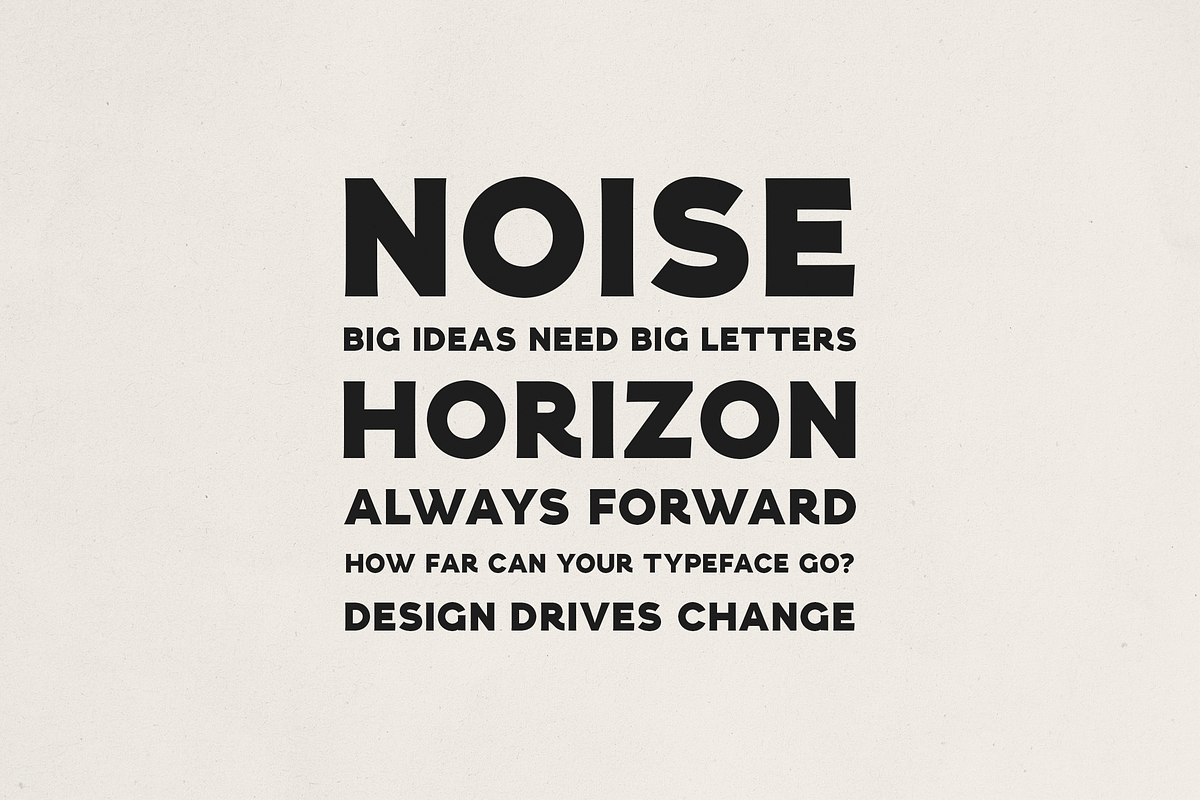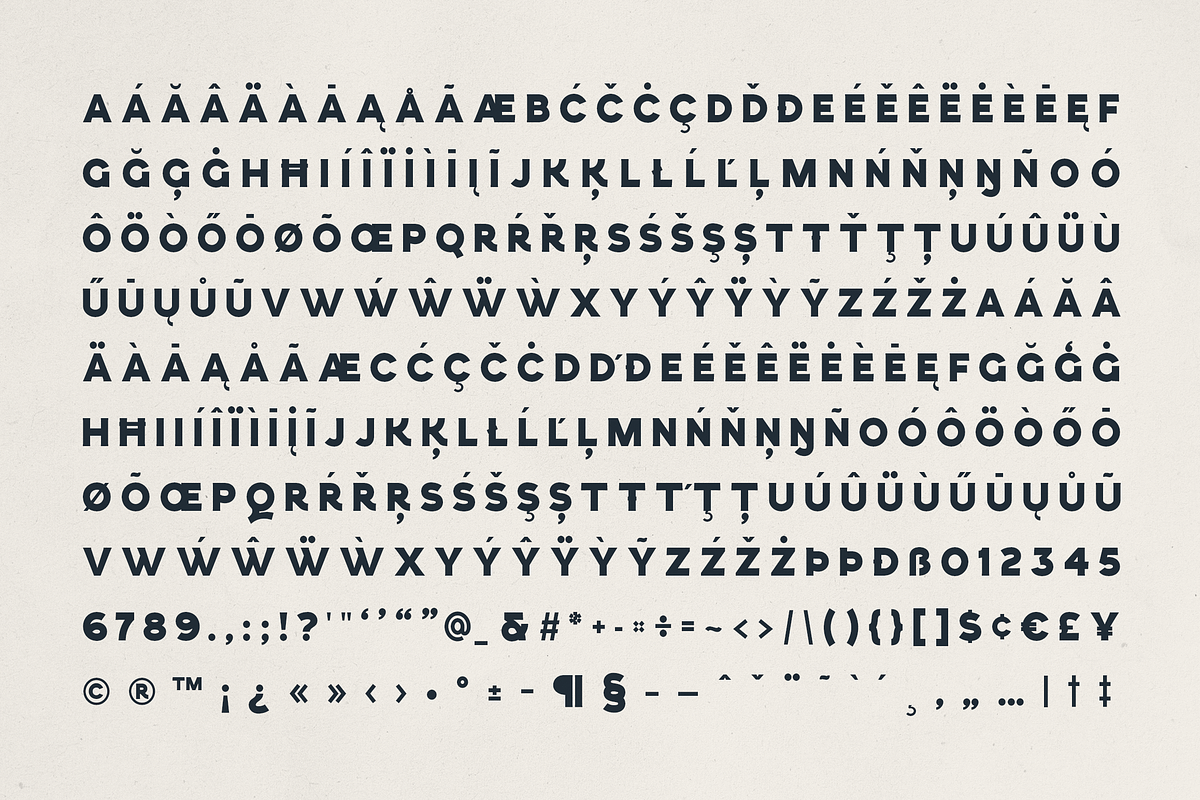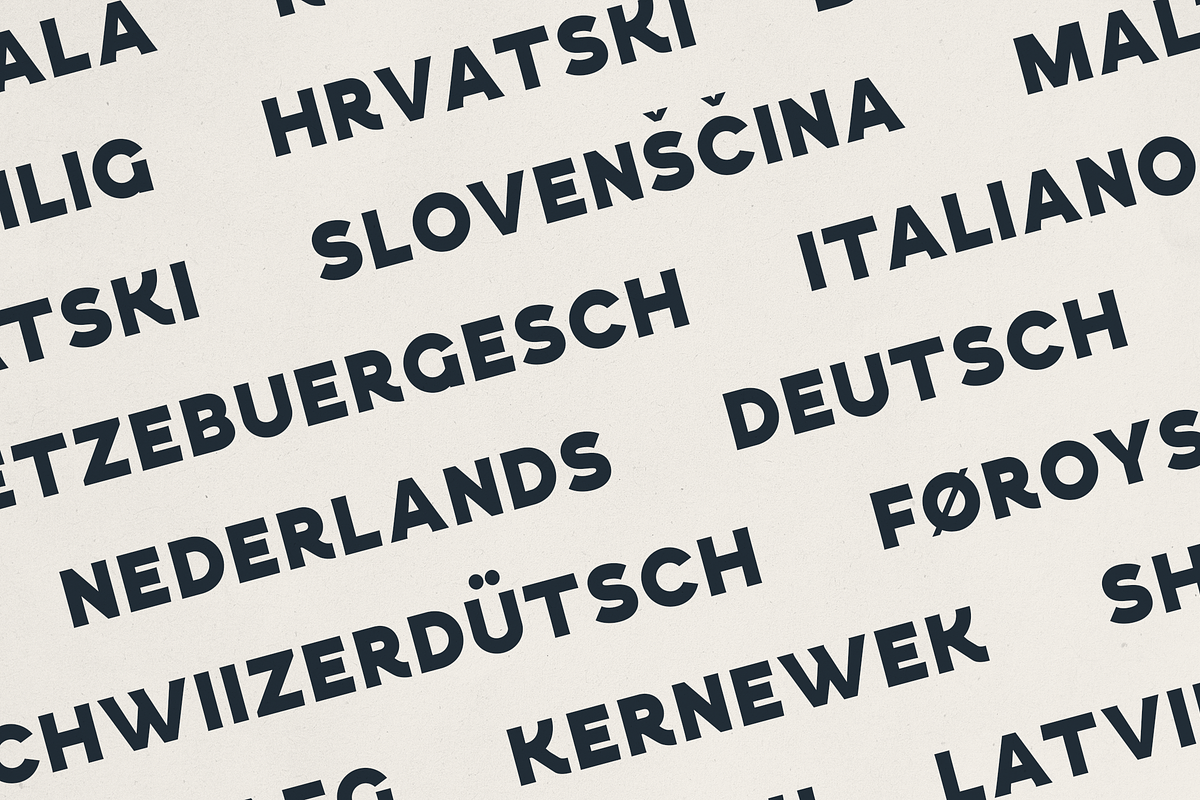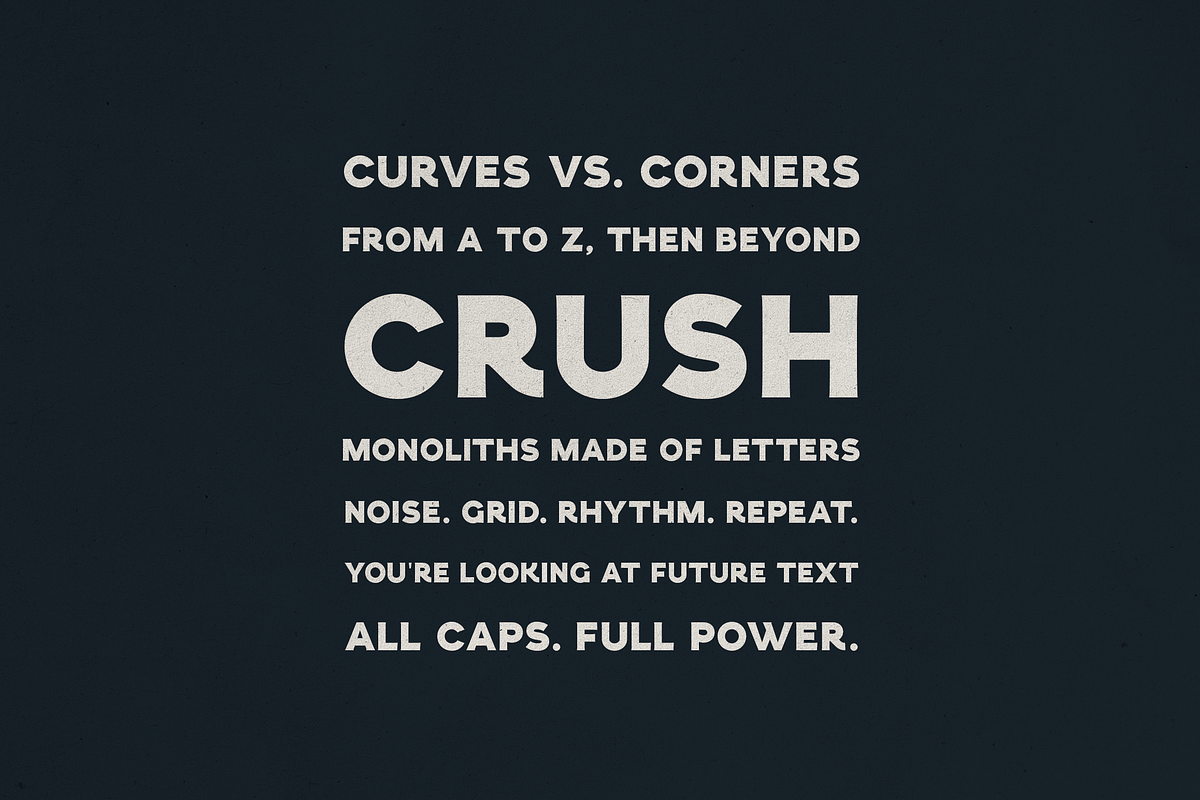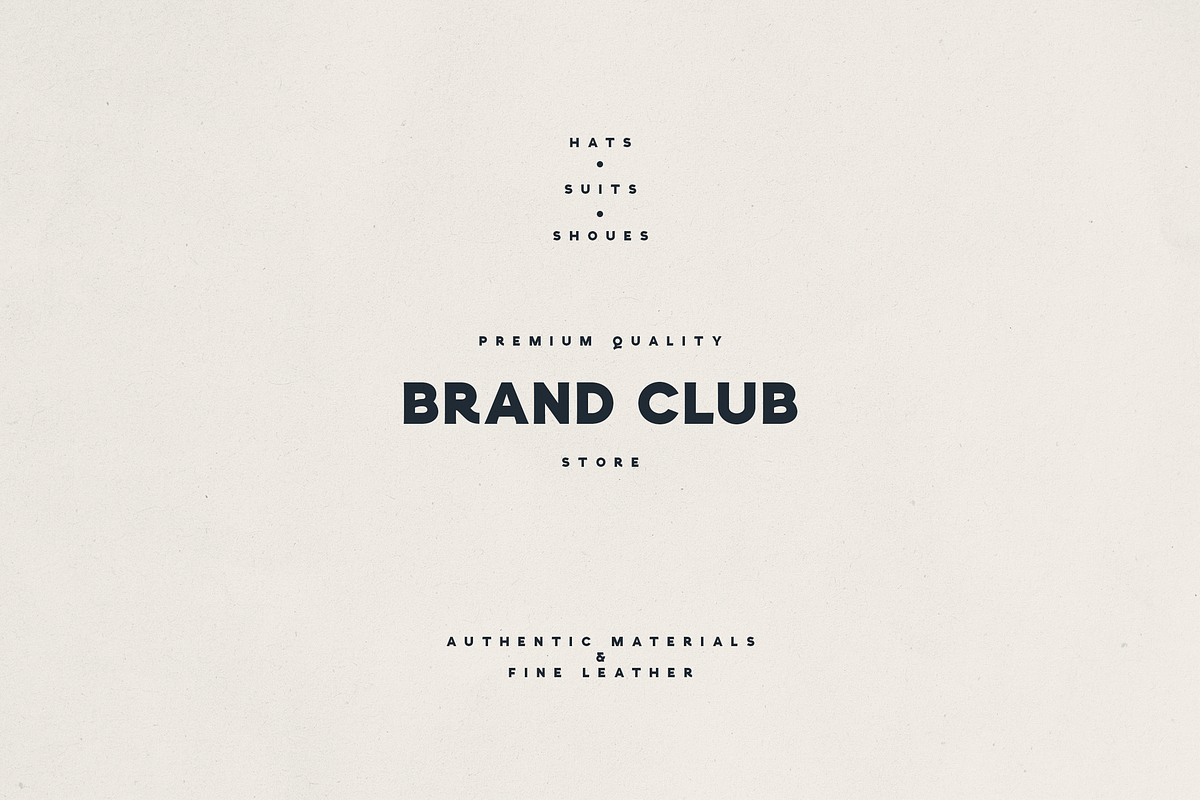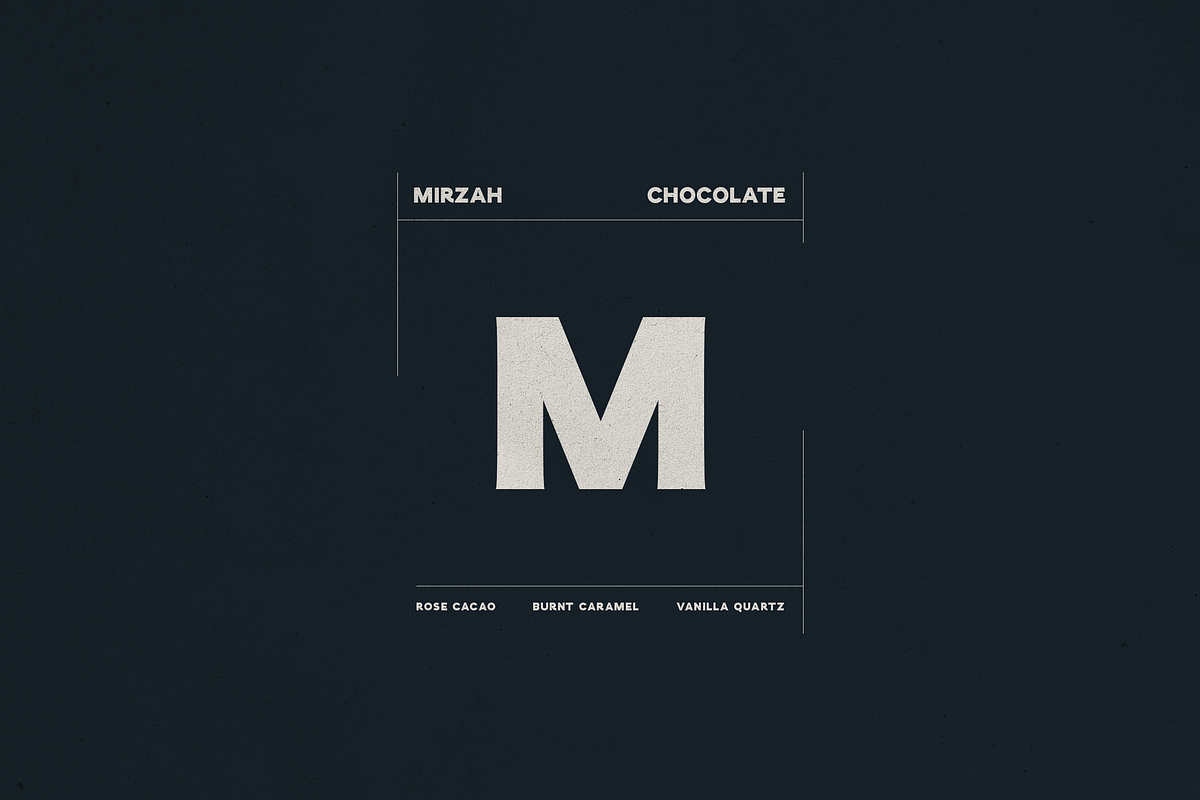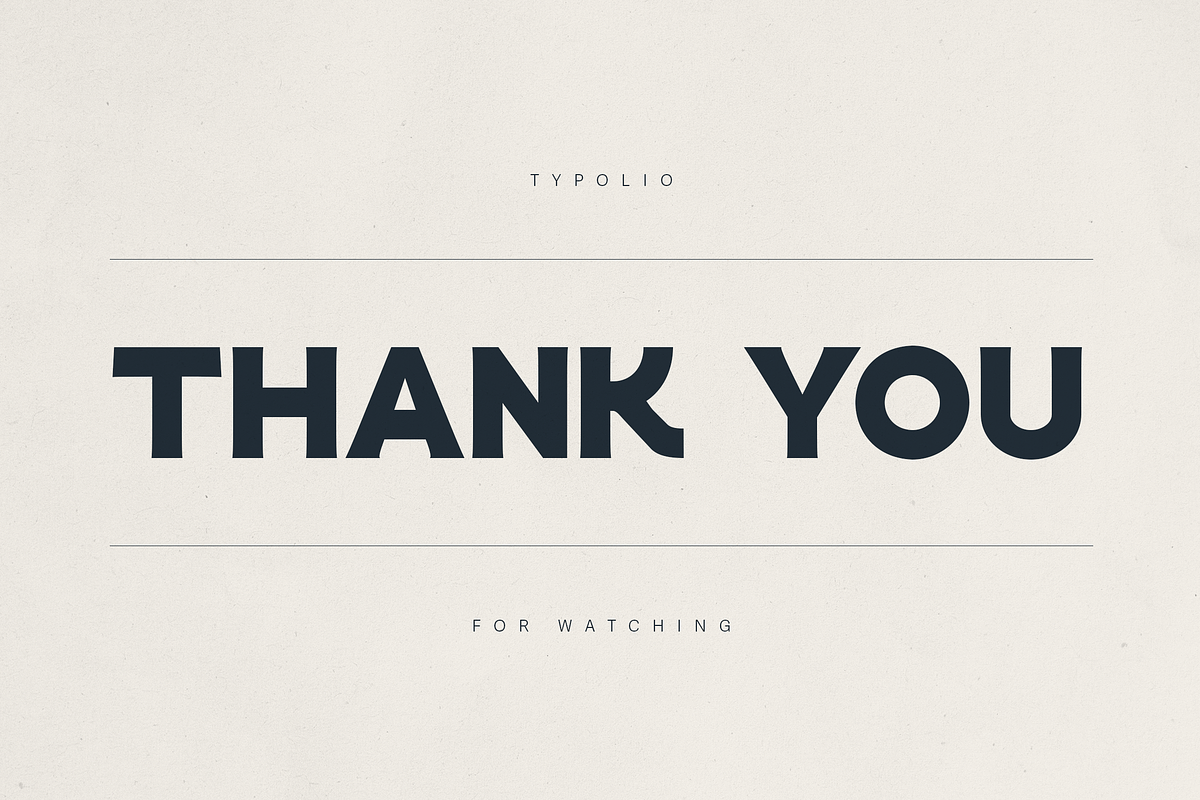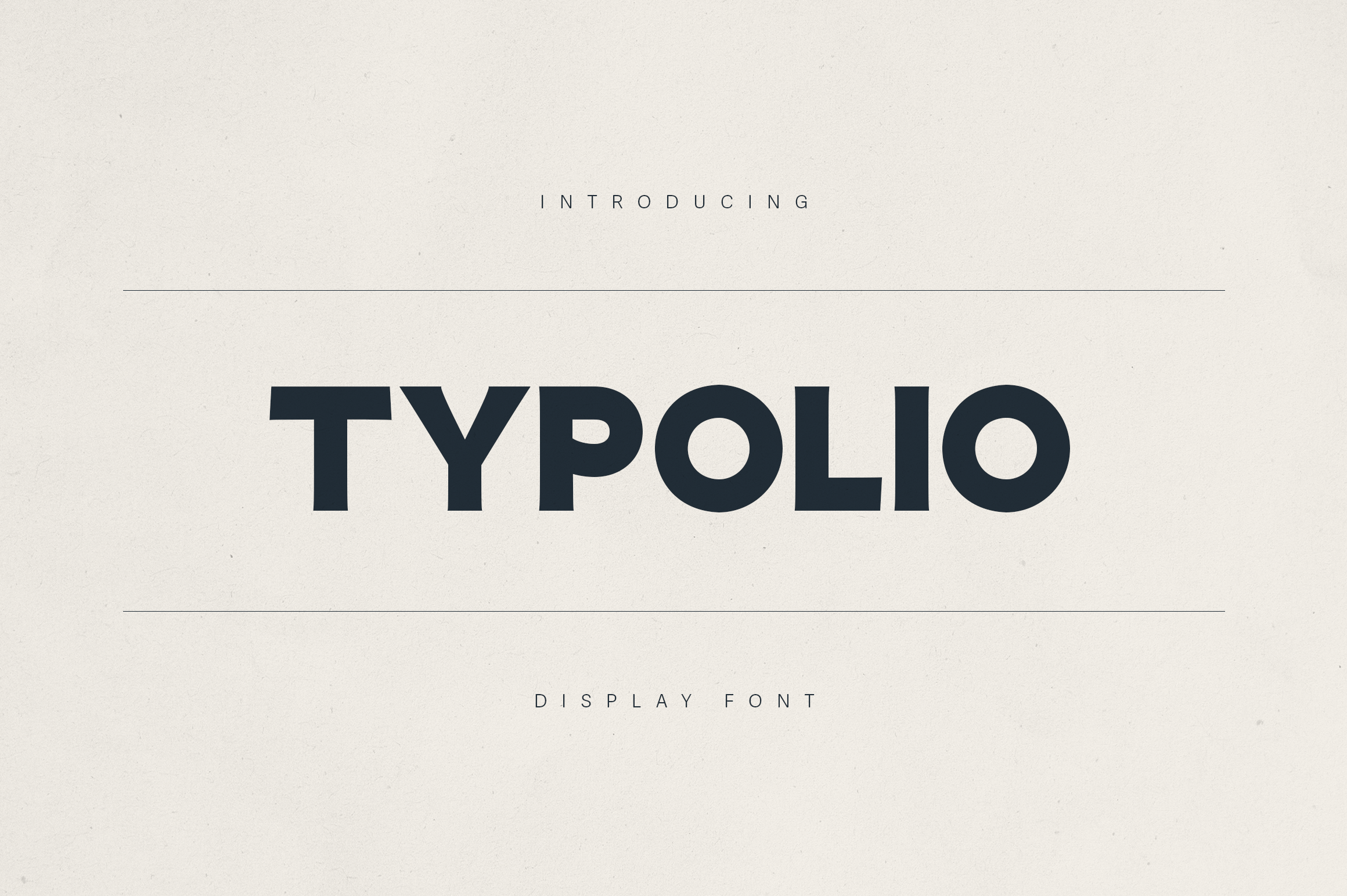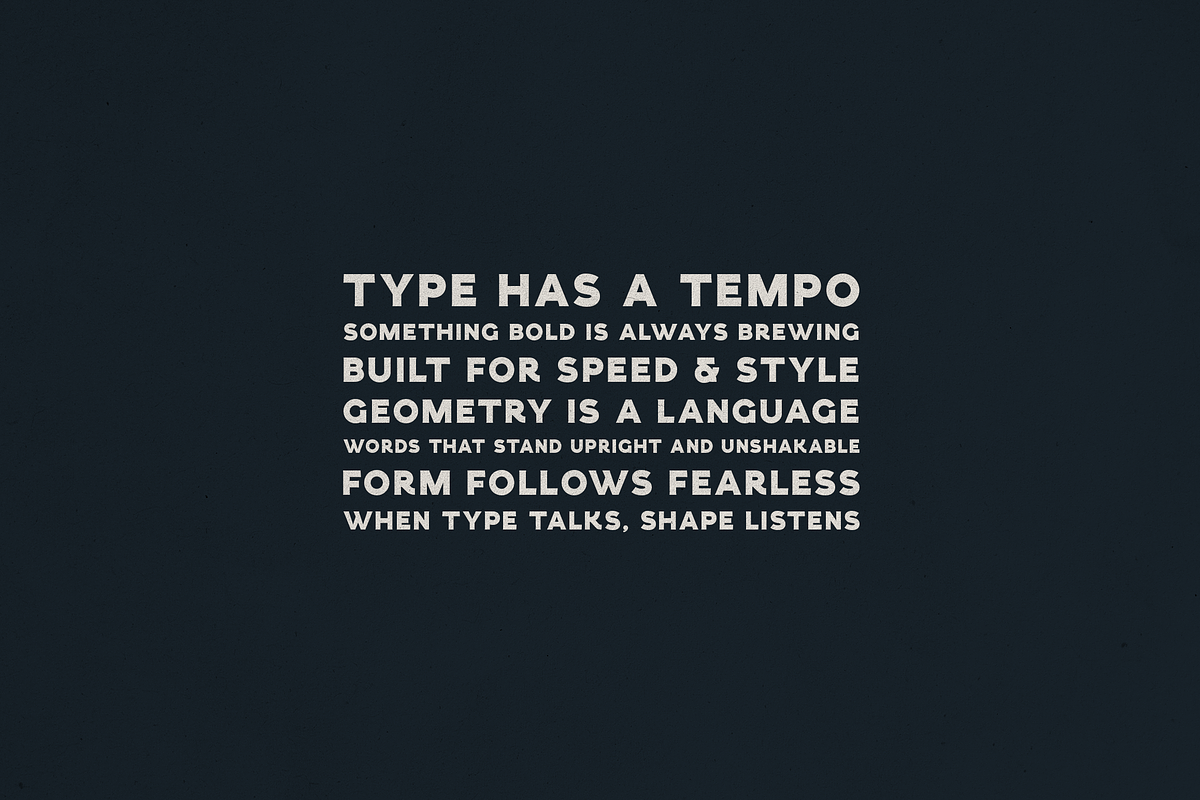
Typolio – Bold Display Font
Typolio – Bold Display Font for Modern Brands
Typolio is a versatile and impactful display font crafted for bold branding, editorial headlines, packaging, and contemporary design projects. With its strong geometric structure and clean lines, Typolio blends modernist simplicity with high-end aesthetics—perfect for logos, posters, fashion labels, tech startups, and minimalist layouts.
Whether you're designing a perfume label, a premium chocolate brand, or a sleek apparel line, Typolio adds presence and clarity without sacrificing elegance. This typeface is optimized for both digital and print, offering readability and character across all platforms.
• All-caps Latin alphabet
• Clean, modern sans-serif style
• Perfect for branding, packaging, magazines & signage
• Supports multiple languages
Make a statement with confidence—Typolio is typography that speaks loud and clear.